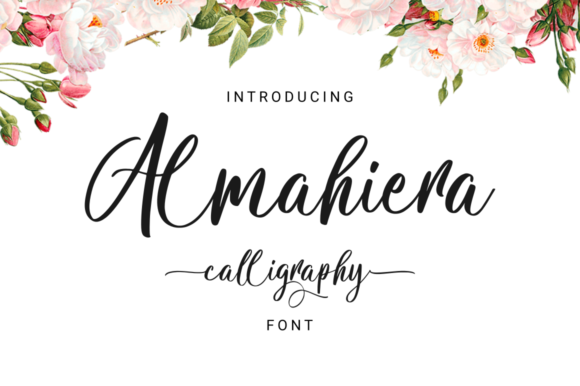
Introduction to Almahiera Font
Almahiera is a one-of-a-kind crafting font that will effortlessly add a charming feel to any design project.
Almahiera is a one-of-a-kind crafting font that will effortlessly add a charming feel to any design project!
Key Features of Almahiera Font
Why Choose Almahiera Font?
Almahiera Font offers exceptional quality and versatility, making it a valuable addition to your design toolkit. Whether you’re creating for personal projects or commercial use, Almahiera Font delivers professional results.